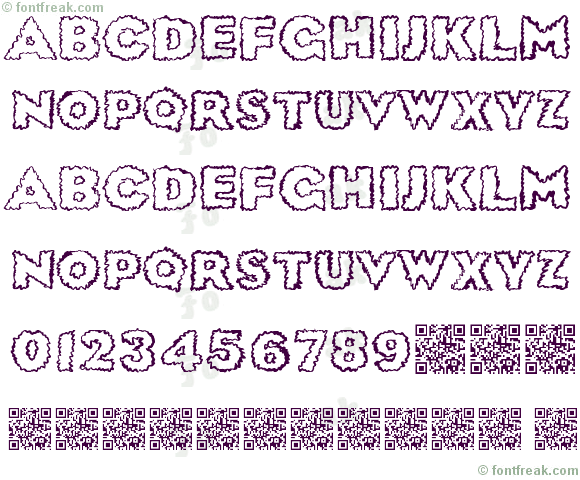
SickDream
About SickDream
SickDream, created by XEROGRAPHER FONTS in 2014, is a unique display font that captures attention with its playful, whimsical style. This font has a distinct, hand-drawn quality characterized by its irregular, cloud-like shapes. The stroke weight varies throughout the characters, giving it a dynamic and organic feel. The ample spacing between letters enhances readability while contributing to its artistic flair. SickDream features rounded edges and a playful design, making it perfect for projects that require a touch of creativity and fun.
This font excels in various use cases. It is an excellent choice for designing vibrant movie posters that aim to attract a younger audience, as its quirky style can evoke a sense of excitement. Additionally, it works beautifully for children's book covers, where its playful nature can engage young readers. Restaurant menus that seek to convey a casual and friendly atmosphere can also benefit from the unique charm of SickDream. Furthermore, it is an ideal option for graphic designers seeking to create eye-catching merchandise, such as t-shirts and stickers, that stand out in a crowded market.
The target audience for SickDream includes graphic designers, small business owners, and content creators who are looking to add a distinctive touch to their work. This font invites creativity and inspiration, making it a versatile asset for anyone in need of a unique typographical solution.
What truly sets the SickDream font apart is its ability to blend playfulness with artistic expression. Whether you are crafting a vibrant design or simply adding a whimsical element to your project, a SickDream font free download can provide the perfect finishing touch, ensuring your work remains memorable and engaging.